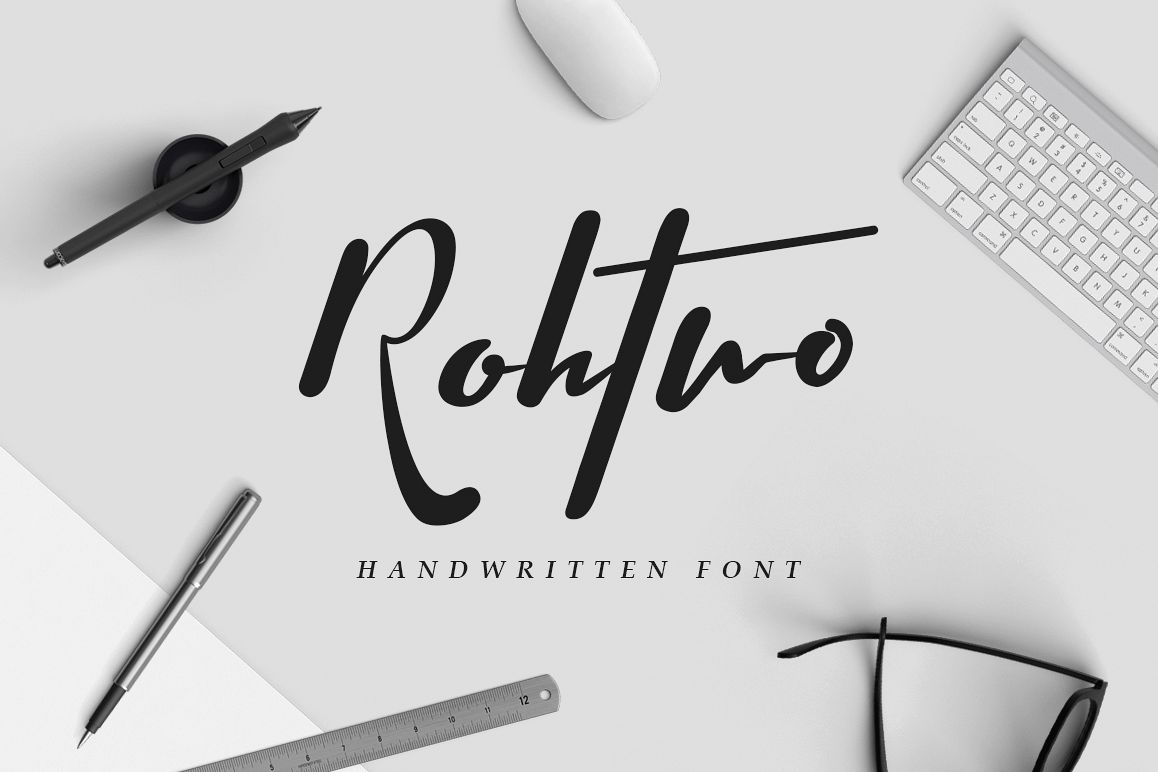
Give your designs an authentic handcrafted feel. "Rohtwo" is perfectly suited to signature, stationery, logo, typography quotes, magazine or book cover, website header, clothing, branding, packaging design and more. Included Stylistic Alternates.Use the alternates in Adobe Illustrator and Adobe Photoshop, this is the quick tutorial: